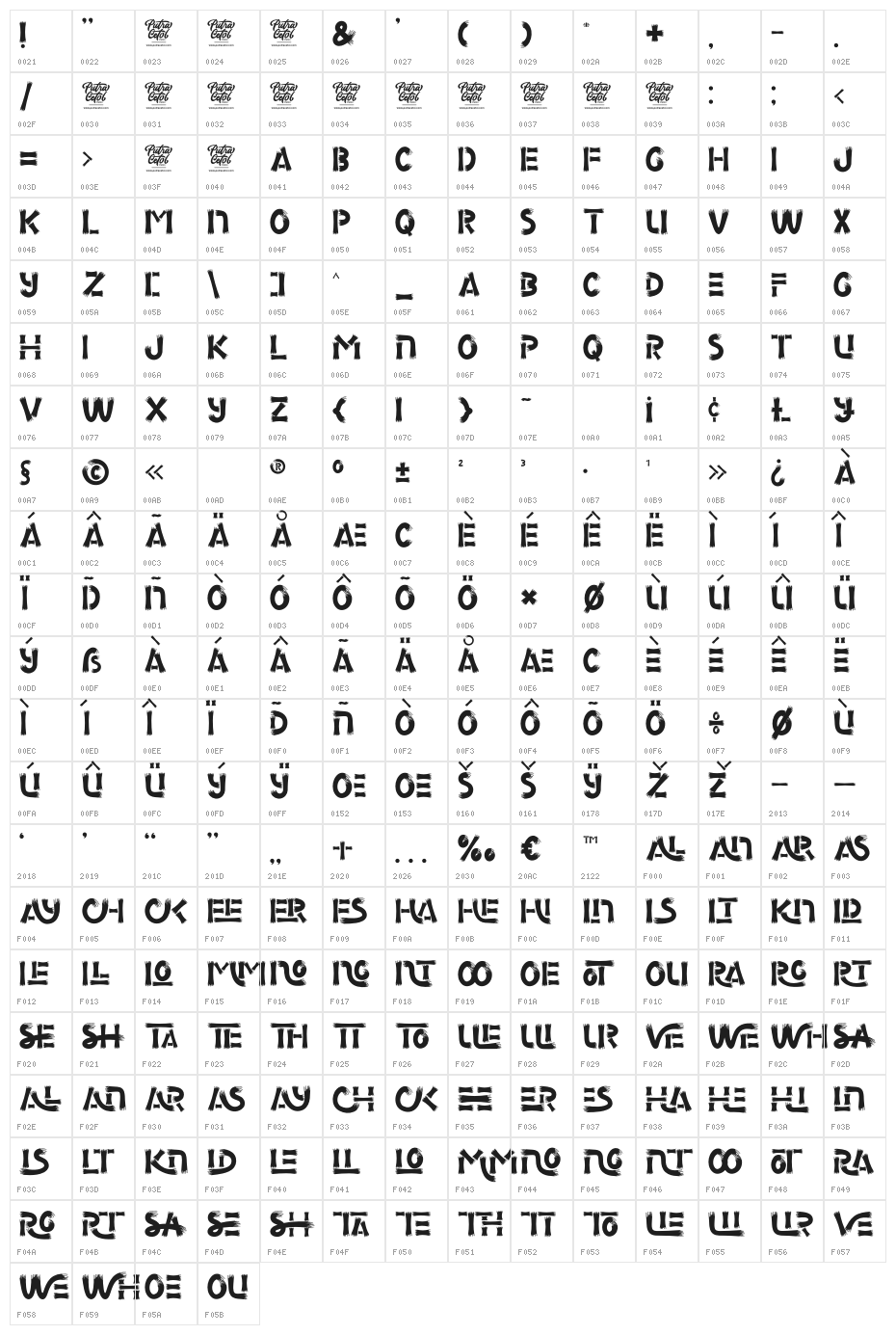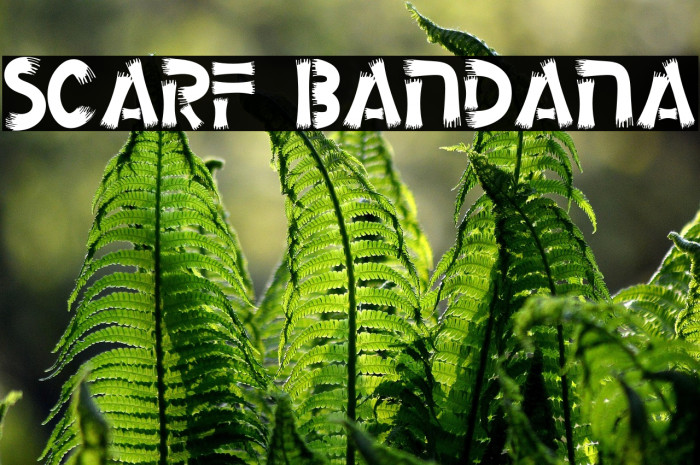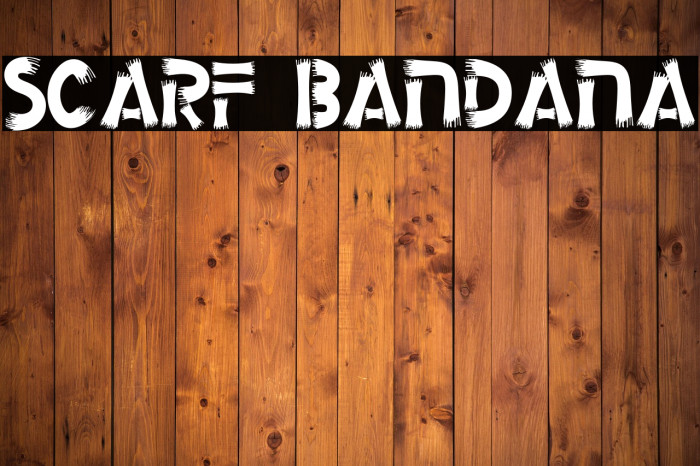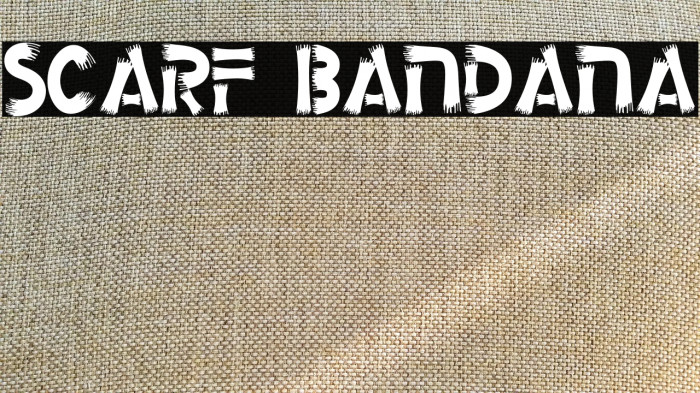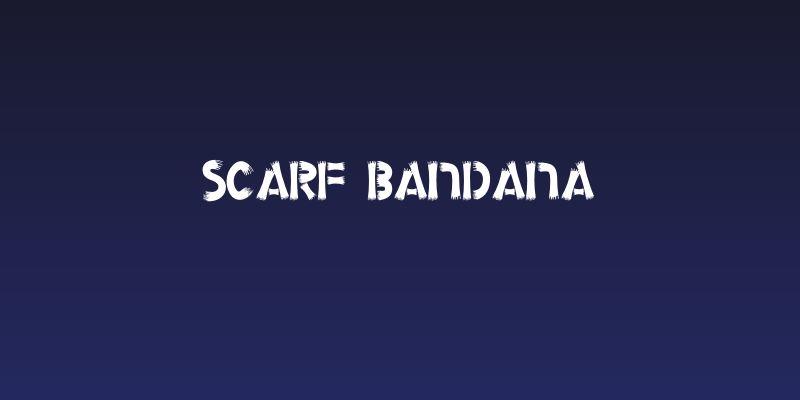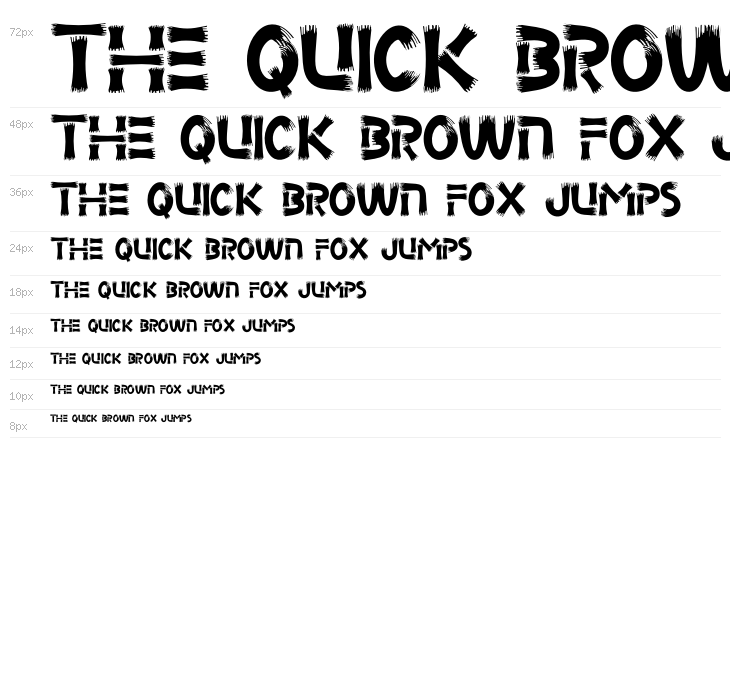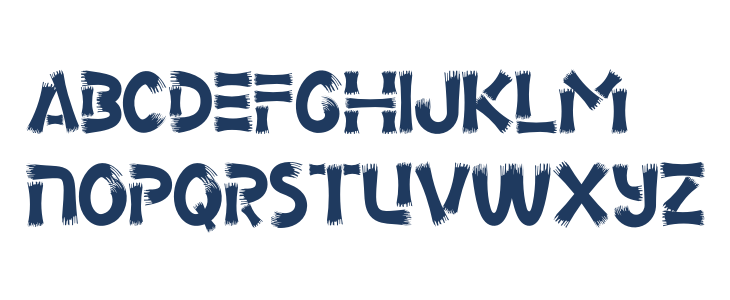
Scarf Bandana Font
Scarf Bandana Description
This font features a bold and dynamic brushstroke style, giving it a lively and energetic appearance. The characters are crafted with a sense of movement, as if painted with a broad brush, creating a textured and artistic look. The strokes vary in thickness, adding a sense of depth and dimension to each letter. This font is highly decorative, making it ideal for projects that require a strong visual impact. The uppercase and lowercase letters maintain a consistent style, with a playful and informal vibe. The special characters are designed to complement the overall aesthetic, ensuring a cohesive look across all text elements.
| Proposed Projects | Ideal for posters, album covers, branding, and any design needing a bold, artistic touch. |